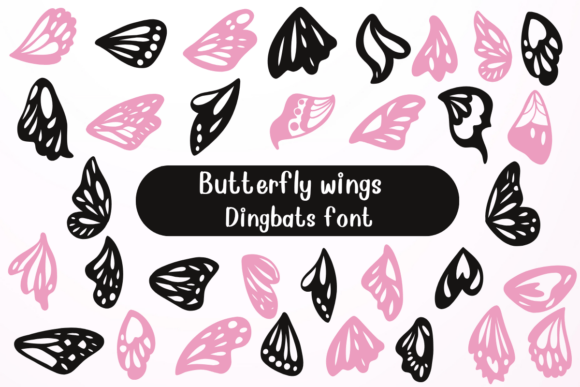
The Sweet Allure of Butterfly Wings Font
Have you ever been browsing through a design market or a craft store and stumbled upon a beautifully crafted piece that makes you wonder, “How did they come up with this?” For many designers, it’s that one creative moment that sparks an idea and sets their imagination soaring. It’s the same feeling that drives us to experiment with new fonts, like the delightful Butterfly Wings Font.
Butterfly Wings Font is a charming dingbats font that adds a touch of whimsy to any design. Its natural and unique style makes it incredibly versatile, allowing designers to push the boundaries of their creativity. Whether you’re working on a children’s book, a greeting card, or a packaging design, Butterfly Wings Font is the perfect companion to help you bring your ideas to life.
With its endless possibilities, it’s no wonder that designers are falling in love with Butterfly Wings Font. Its value lies in its ability to add a personal touch to any project, making it a valuable asset in any designer’s toolkit.
Key Features of Butterfly Wings Font
- Unique Characteristics: The Butterfly Wings Font features delicate, hand-painted brushstrokes and intricate details, reminiscent of butterfly wings, making it a unique and eye-catching addition to any design.
Butterfly Wings Font Review
Overall, I think the Butterfly Wings Font is a visually stunning and elegant font. ✨ It’s perfect for designers looking to add a touch of whimsy and sophistication to their projects. ✨ The delicate curves and intricate details of the font make it ideal for use in branding, invitations, and other high-end materials.
One of the things I appreciate most about this font is its versatility. ✨ It works well in a variety of contexts, from formal to informal, and can be used in both digital and print applications. ✨ Additionally, the font is highly customizable, allowing designers to adjust the size, color, and style to suit their specific needs.
While the Butterfly Wings Font is a beautiful font, there are a few limitations to be aware of:
- ⚠️ The font can be difficult to read in smaller sizes, particularly in digital applications where the text may be viewed at a distance.
- ⚠️ The font may not be suitable for use in applications where a clear, concise message is required, as the intricate details can be distracting.
Overall, I would highly recommend the Butterfly Wings Font to designers who are looking to add a touch of elegance and sophistication to their projects. While it may have some limitations, the benefits of using this font far outweigh the drawbacks.
The Butterfly Wings Font is ideal for:
- Magical and whimsical designs
For the best results, pair the Butterfly Wings Font with pastel colors and soft textures to create a dreamy and enchanting atmosphere.